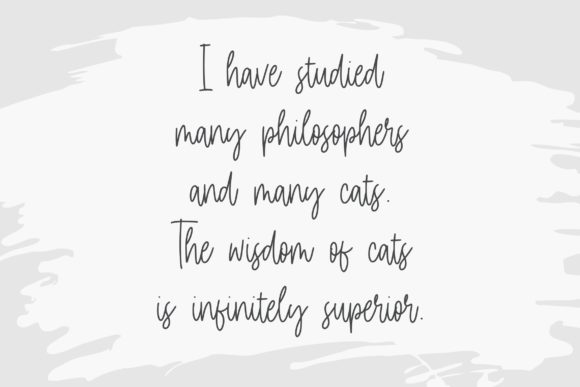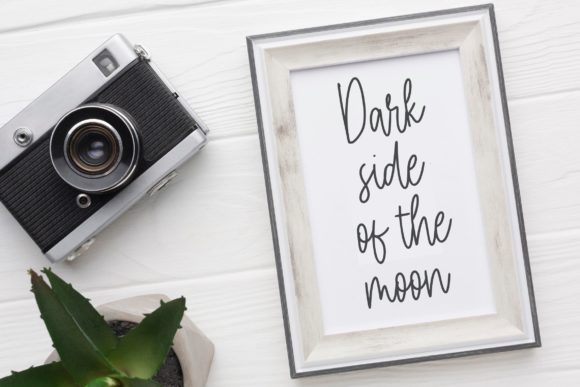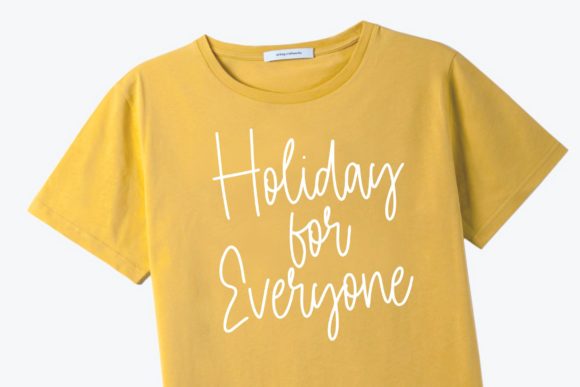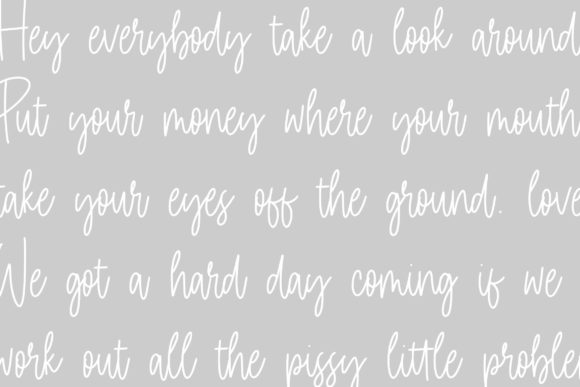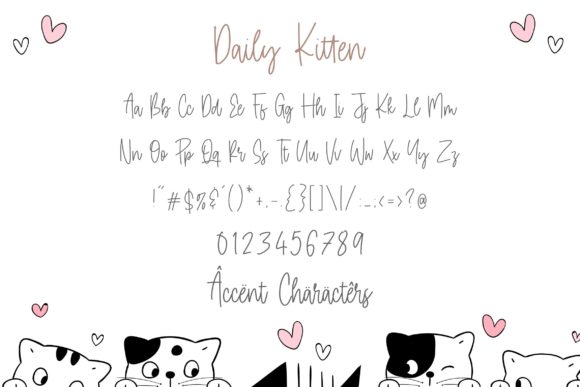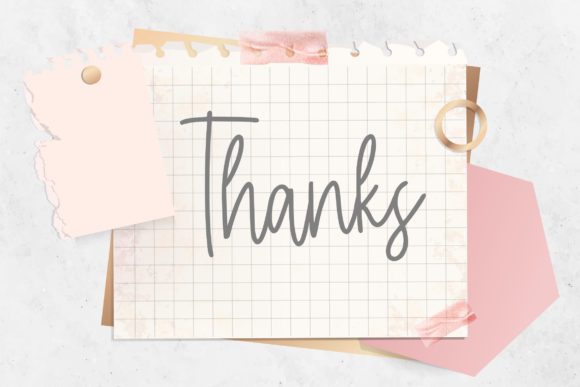
Introducing Daily Kitten Font: The Purrfect Addition to Your Design Collection
Are you tired of using the same old fonts in your designs? Look no further than the Daily Kitten font, a sweet and quirky handwritten font that’s sure to bring a touch of whimsy to your work. With its relaxed style and charming personality, Daily Kitten is the perfect choice for designers and crafters looking to add a little something special to their projects.
The Story Behind Daily Kitten Font
Daily Kitten font is a handcrafted typeface that’s been carefully designed to capture the essence of a carefree, laid-back vibe. Its unique and quirky style is reminiscent of a child’s scribbles, making it an excellent choice for projects that require a playful and youthful touch. Whether you’re working on a branding project, a craft tutorial, or a social media graphic, Daily Kitten font is sure to bring a smile to your audience’s faces.
Key Features of Daily Kitten Font
- Handwritten style: Daily Kitten font is a true handwritten font, crafted with love and care to ensure that every letter and numeral is unique and full of character.
- Relaxed and quirky: This font’s laid-back style is perfect for designers who want to add a touch of whimsy to their work.
- Easy to read: Despite its playful nature, Daily Kitten font is surprisingly easy to read, making it an excellent choice for body text and headings.
- Versatile: Daily Kitten font can be used for a wide range of projects, from digital designs to print materials, and from branding to crafting.
What Can You Create with Daily Kitten Font?
The possibilities are endless when it comes to using Daily Kitten font in your designs. Here are a few ideas to get you started:
- Branding and logos: Use Daily Kitten font to create a unique and memorable brand identity that’s sure to stand out.
- Crafting and DIY projects: Add a personal touch to your crafting and DIY projects with Daily Kitten font, perfect for making handmade cards, gift tags, and more.
- Social media graphics: Use Daily Kitten font to create eye-catching social media graphics that are sure to grab your audience’s attention.
- Invitations and party decor: Make your party invitations and decor truly special with Daily Kitten font, perfect for baby showers, birthday parties, and more.
Tips for Using Daily Kitten Font
To get the most out of Daily Kitten font, here are a few tips to keep in mind:
- Experiment with colors: Daily Kitten font looks great in a variety of colors, so don’t be afraid to experiment and find the perfect hue for your design.
- Mix and match: Combine Daily Kitten font with other fonts to create a unique and interesting contrast.
- Play with sizes: Use Daily Kitten font in a range of sizes to add visual interest to your design.
In conclusion, Daily Kitten font is a sweet and quirky handwritten font that’s sure to bring a touch of whimsy to your designs. With its relaxed style, charming personality, and versatility, it’s the perfect choice for designers and crafters looking to add a little something special to their projects. So why not give Daily Kitten font a try today and see what amazing designs you can create?